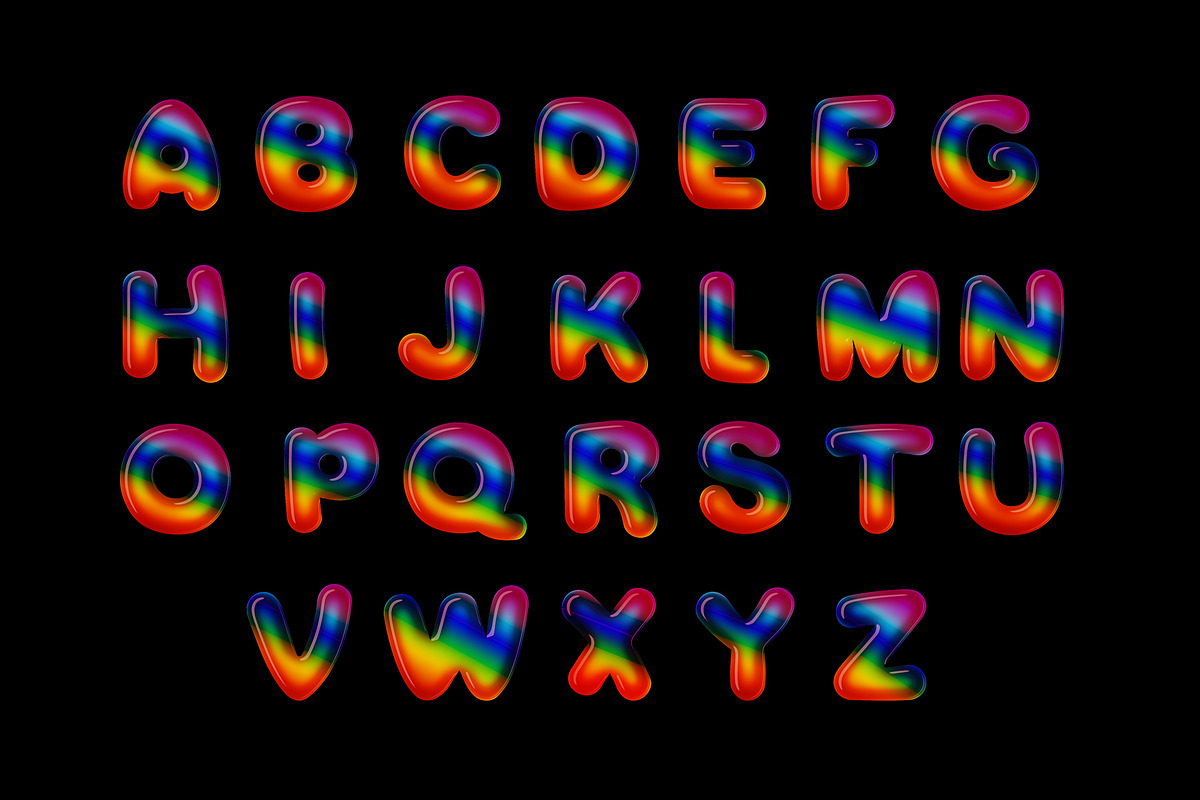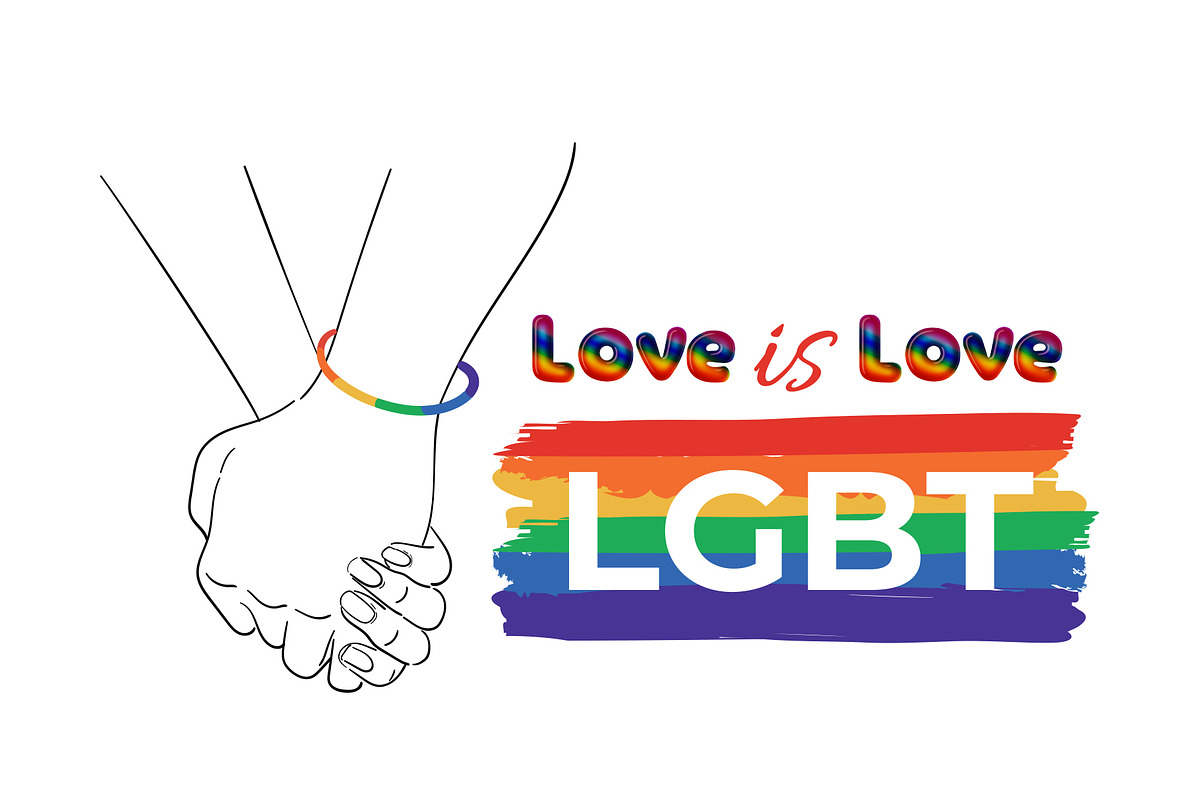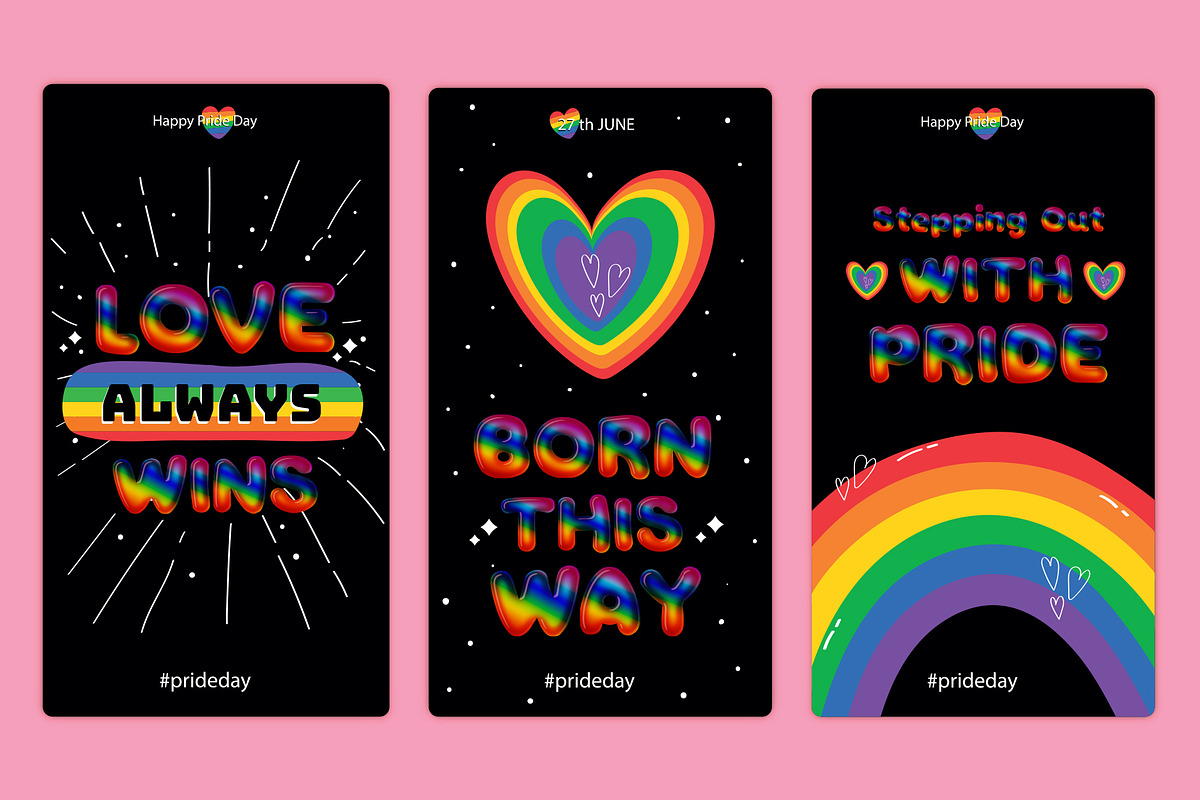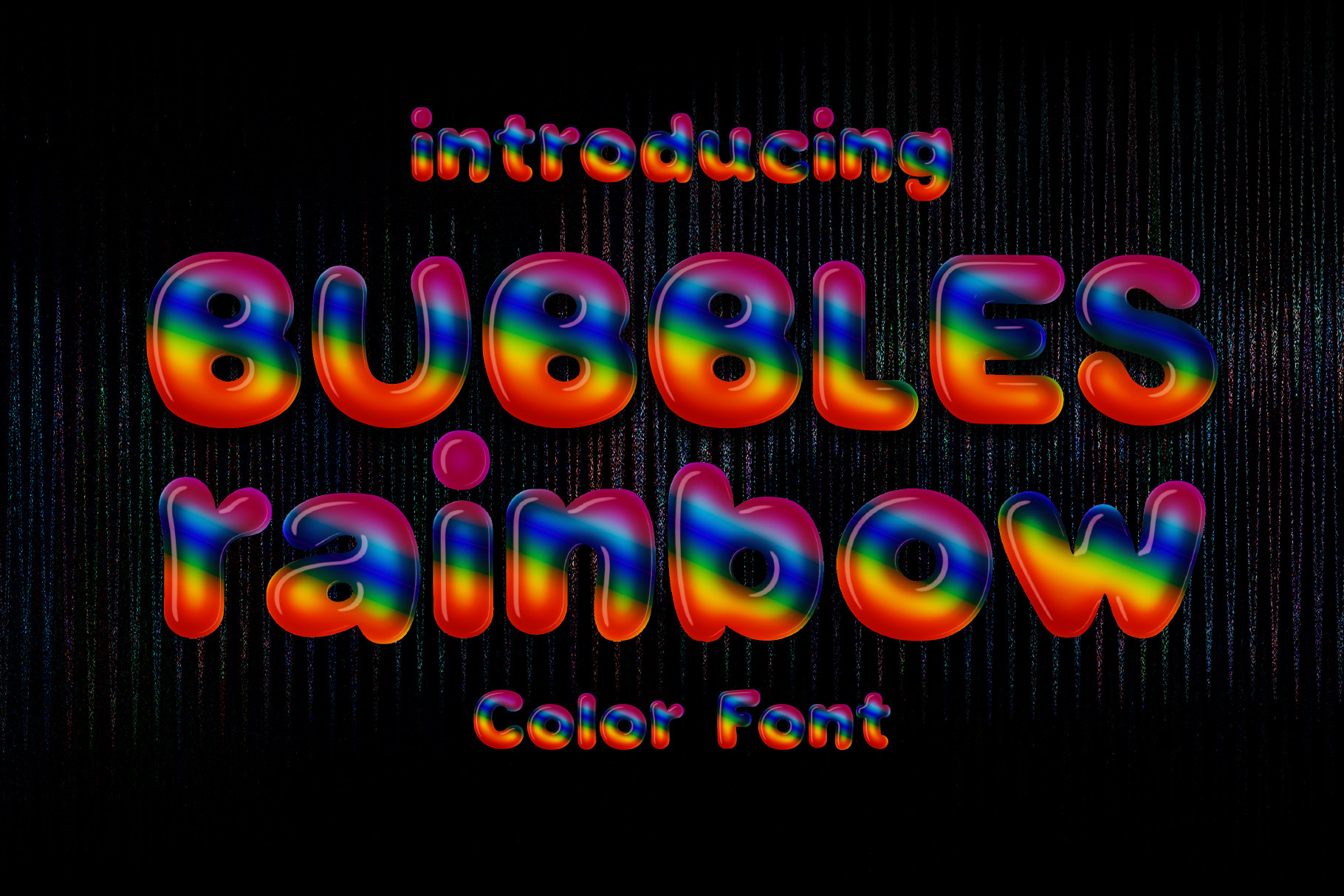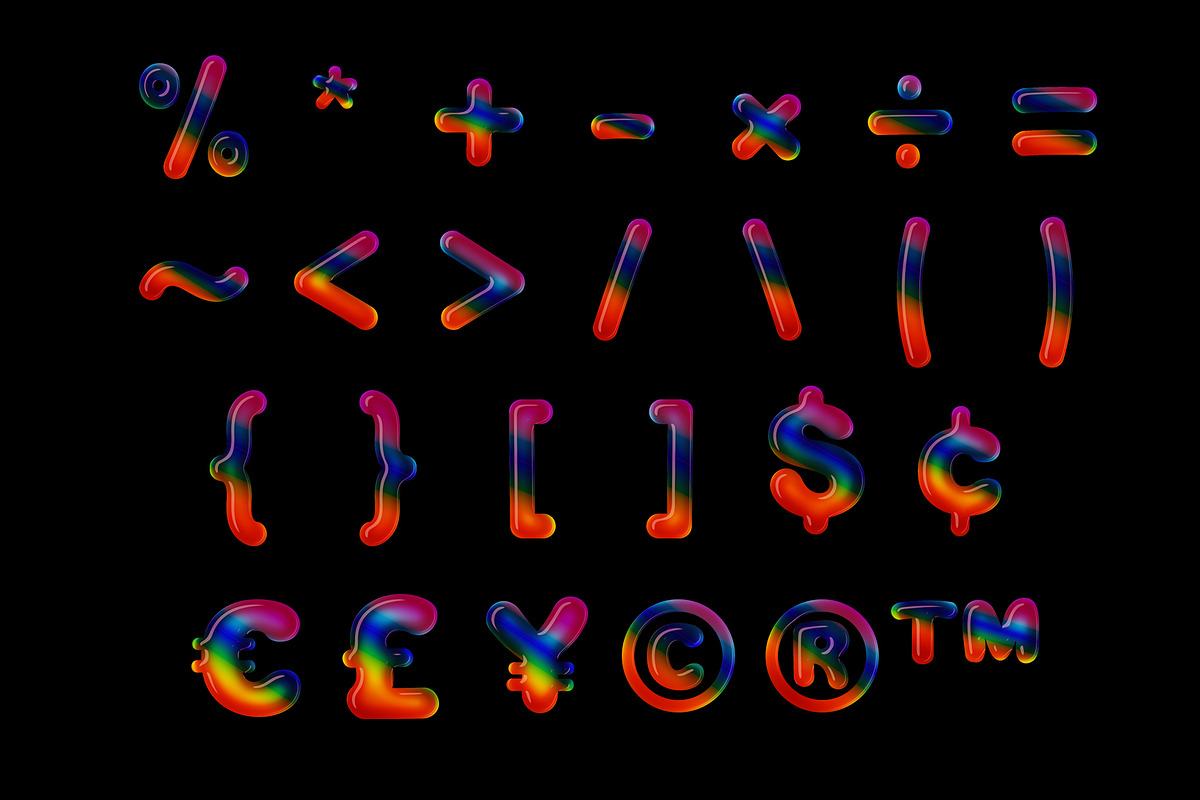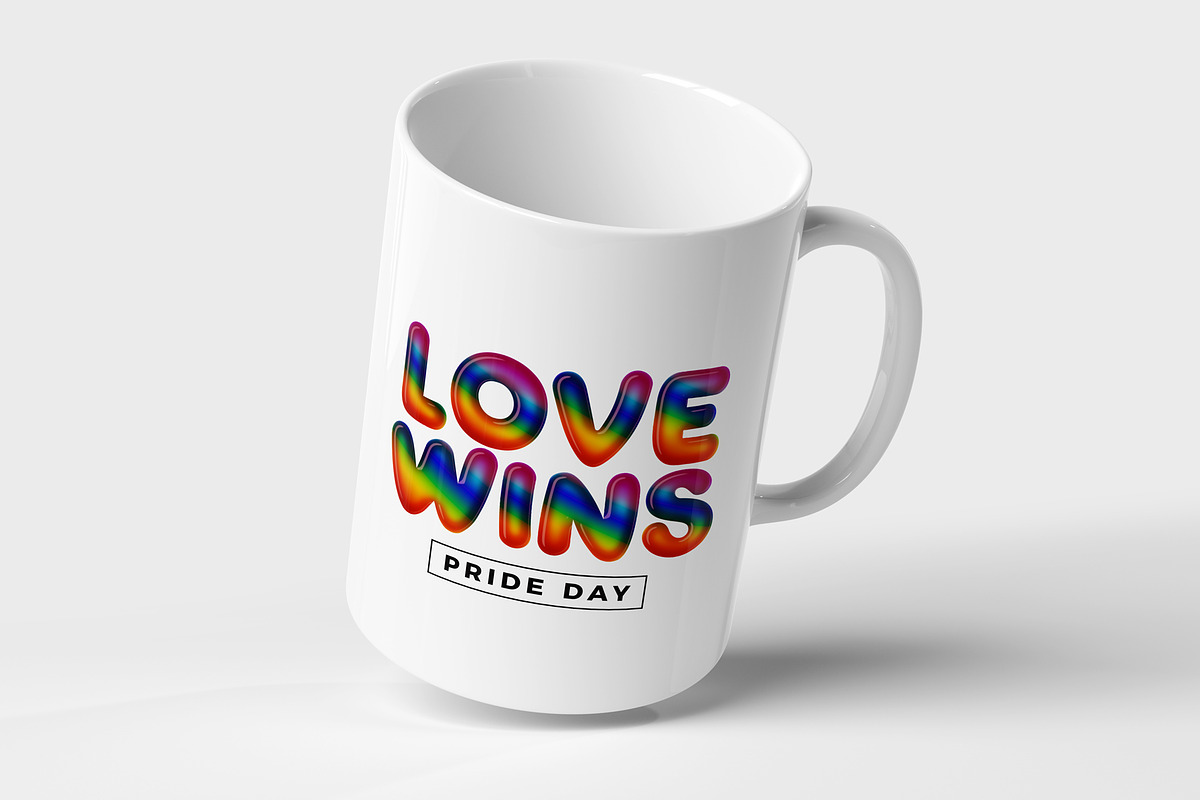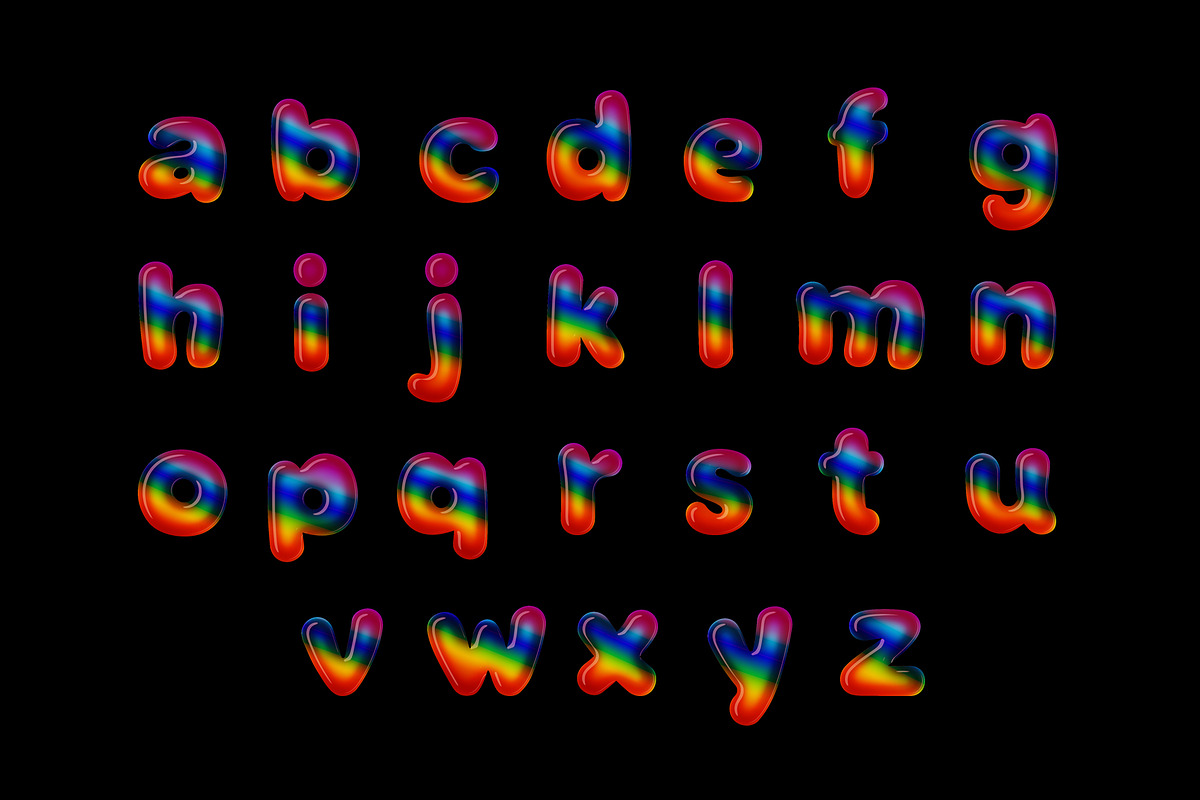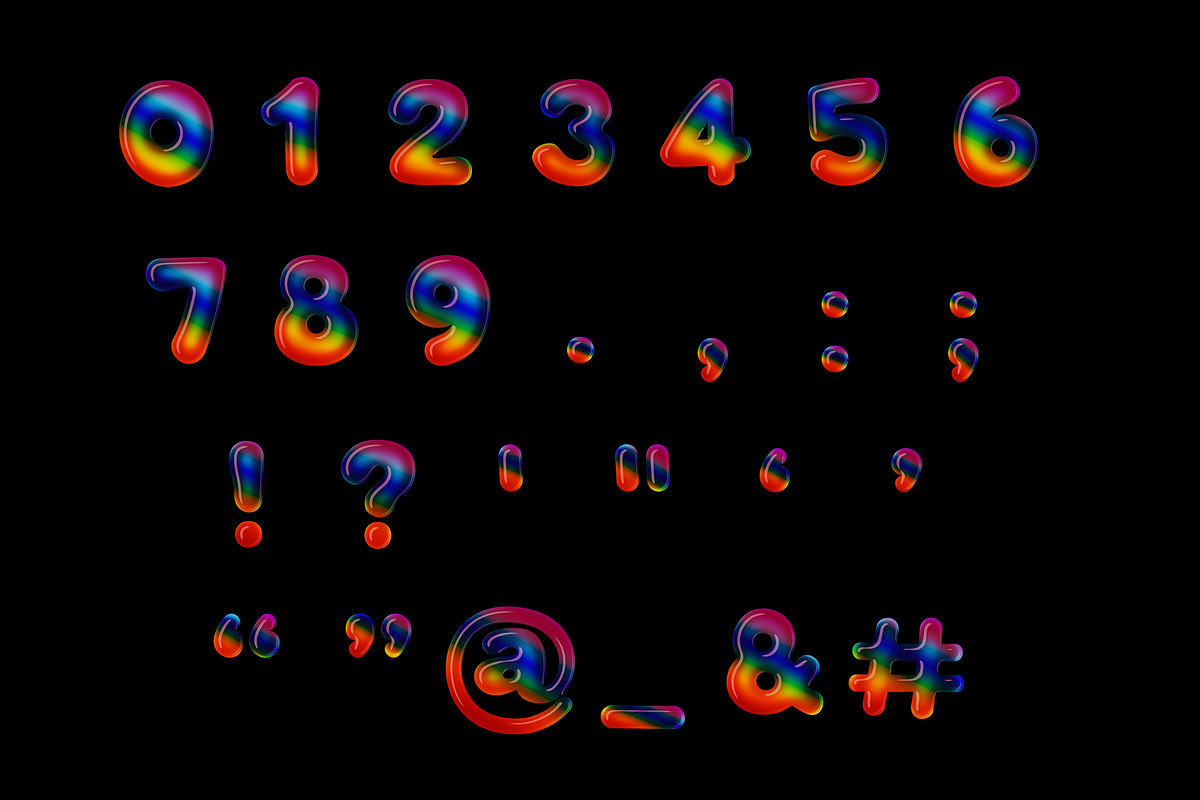
Bubbles Rainbow Color font
Bubbles Rainbow is a beautiful and cute rainbow-colored font. Design your product using this unique font and share your project for others to be inspired by your work!